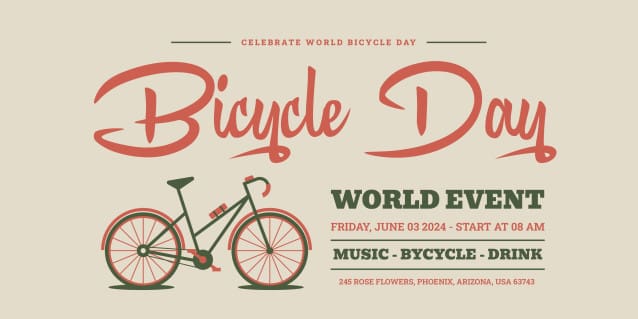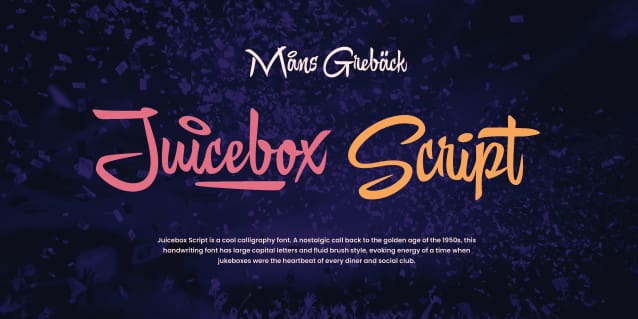
Juicebox Script Font
Juicebox Script Font is a cool calligraphy font with vibes of the golden age of the 1950s. This handwriting font has large capital letters and fluid brush style, evoking energy of a time when jukeboxes were the heartbeat of every diner and social club.